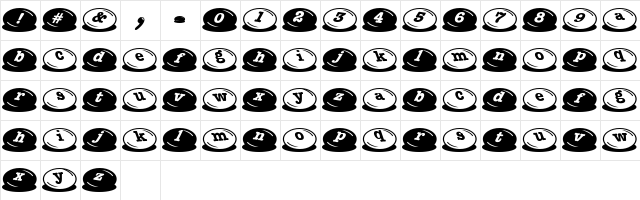
Complete m&ms Regular glyph index. Displaying only characters natively supported by m&ms Regular font.
m&ms is a composed and adaptable typeface that performs quietly and consistently across a wide range of design contexts.